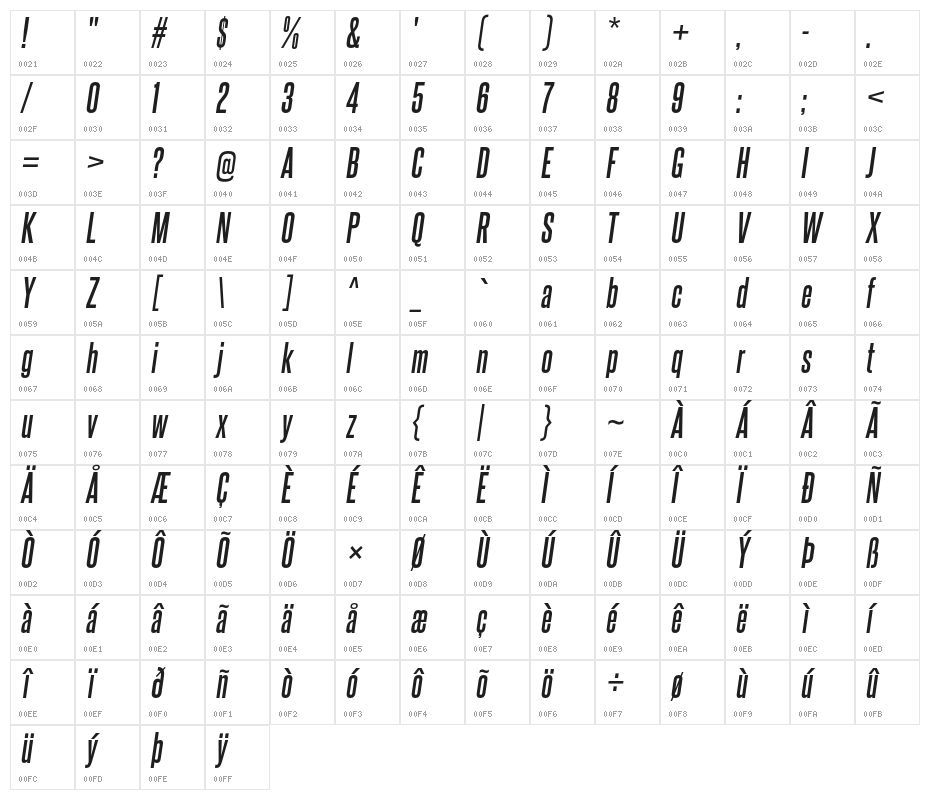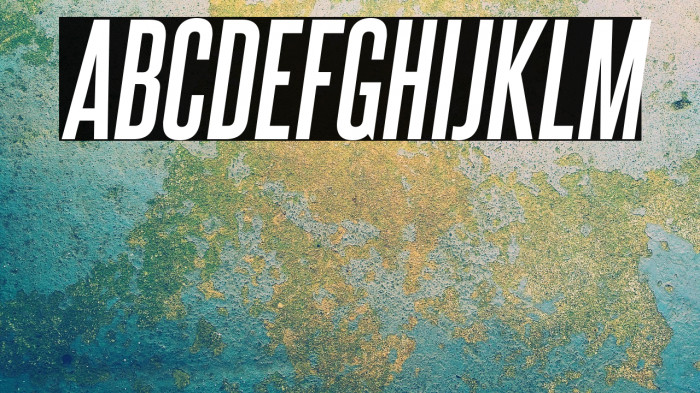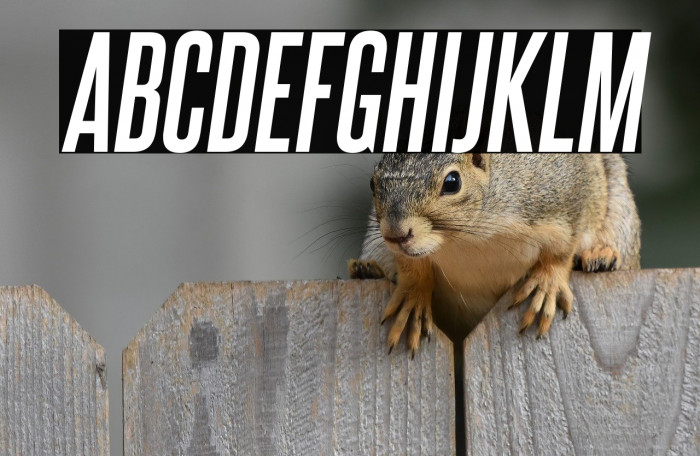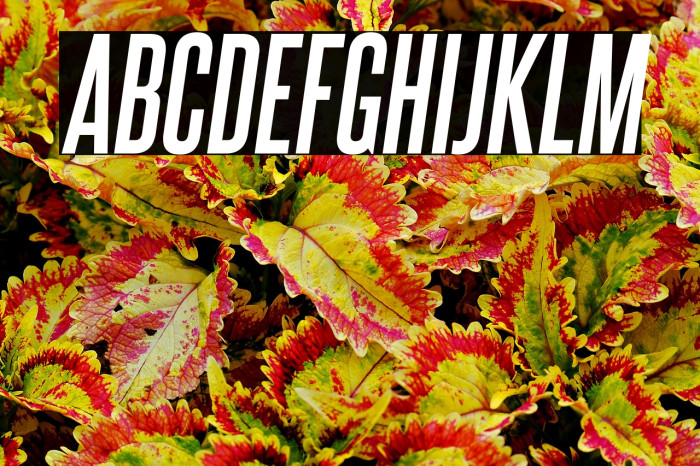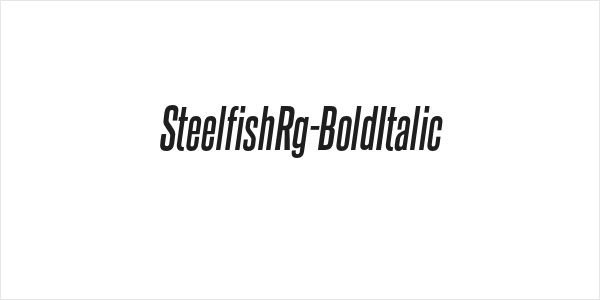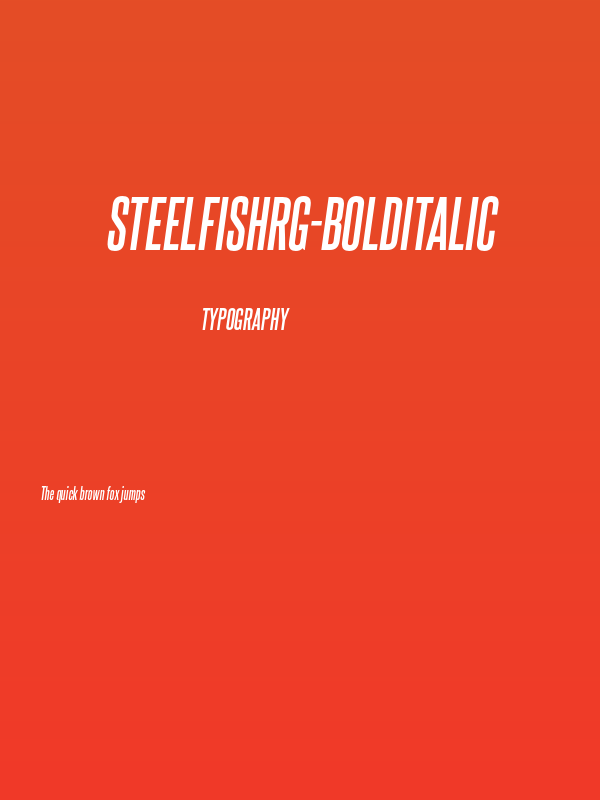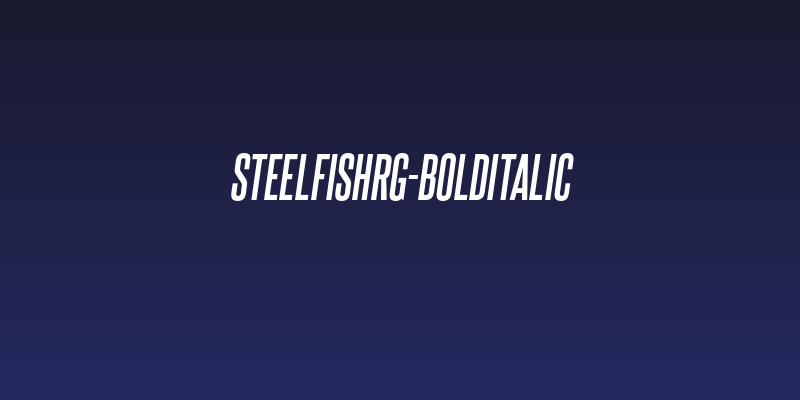
SteelfishRg-BoldItalic Font
SteelfishRg-BoldItalic Description
This font features a bold and italicized style with a strong, impactful presence. The characters are tall and narrow, giving a condensed appearance that enhances its modern and sleek look. The uppercase letters are particularly striking, with a consistent height and a slight slant that adds dynamism. The lowercase letters maintain the same condensed form, ensuring uniformity across the typeface. Numbers and special characters follow the same design principles, providing a cohesive and versatile set. The font's overall design is clean and minimalistic, making it suitable for a variety of applications where a bold statement is desired.
| Proposed Projects | Ideal for headlines, posters, branding, and advertising where a strong visual impact is needed. |